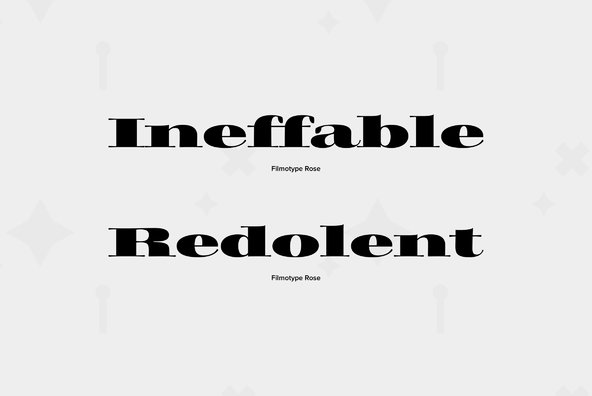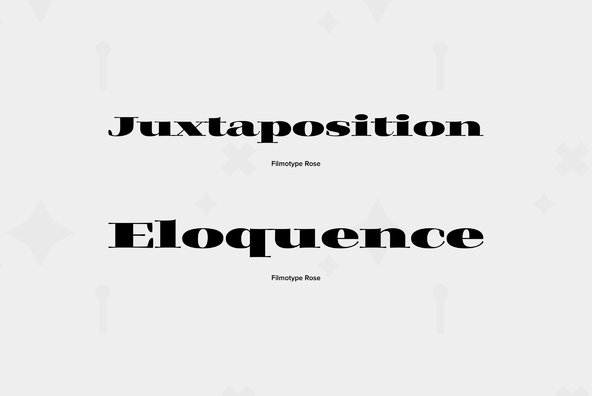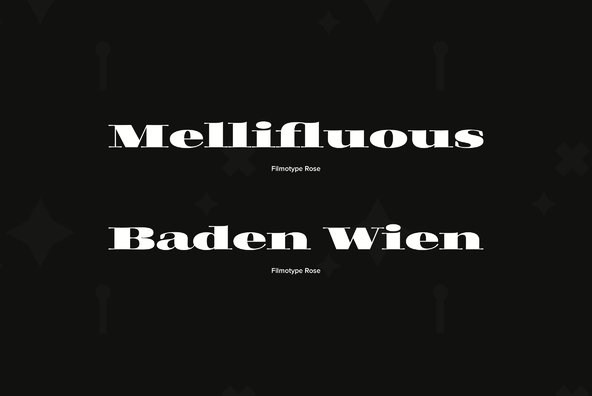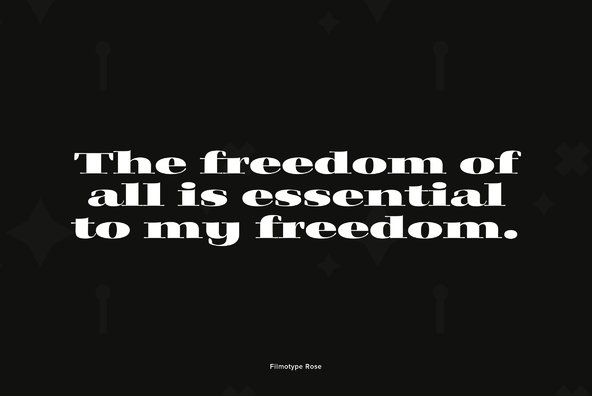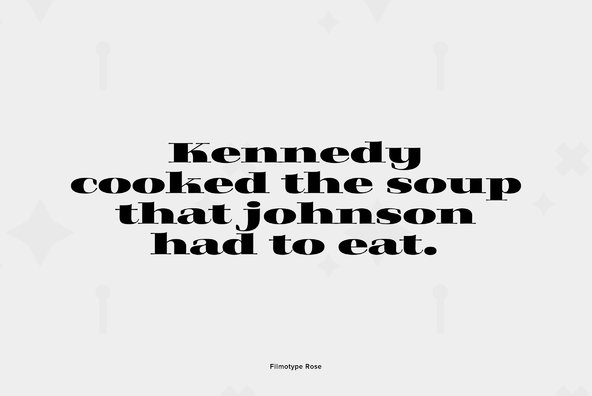
Filmotype Rose
Filmotype Rose was among the company’s earliest original serif styles introduced by Filmotype in the early-to-mid 1950s. This wonderful wide serif style was inspired by the art deco movement of the 1930s.
Filmotype Rose was developed from the original font filmstrips and includes a full international character complement, automatic fractionals, ordinals, and a suite of alternates in dynamic OpenType format.